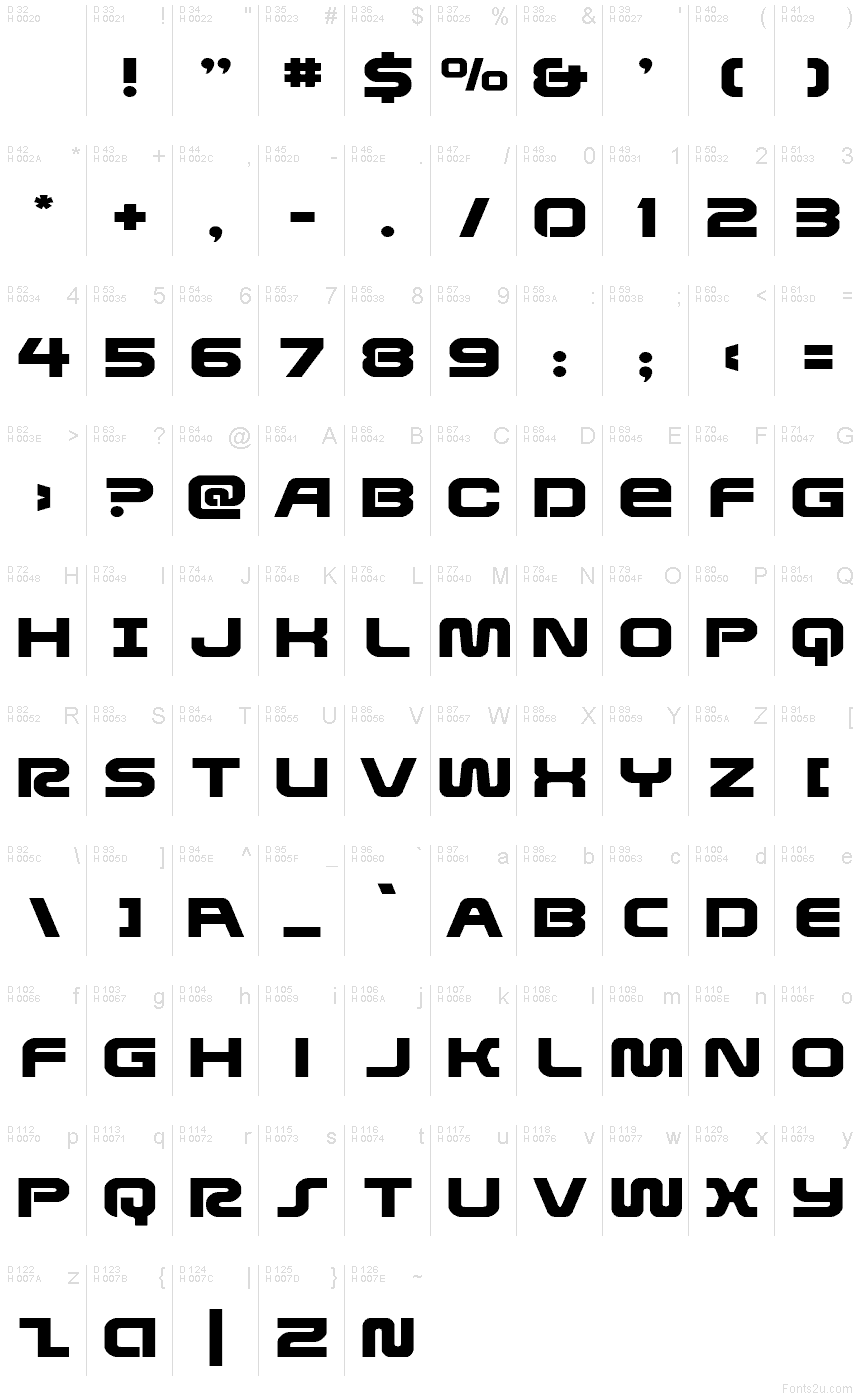
Rocket Command Expanded
Rocket Command Expanded font by Iconian Fonts is an extraordinary display typeface with expanded width, a bold weight, and futuristic style. Its uniformity, combined with a meticulously geometric design, gives it an unparalleled visual impact with indistinguishable mechanical and technological vibrations.
Feel free to use this free futuristic font in unique poster designs biggest part of which is the heading. Also use it for large typography in magazine pages, social media covers and posts, websites and blogs promotional artwork, product labels (for games or consoles), packaging (such as those of gaming laptops), signage, store interior design ideas or backgrounds for photoshoots photography and styling sessions.